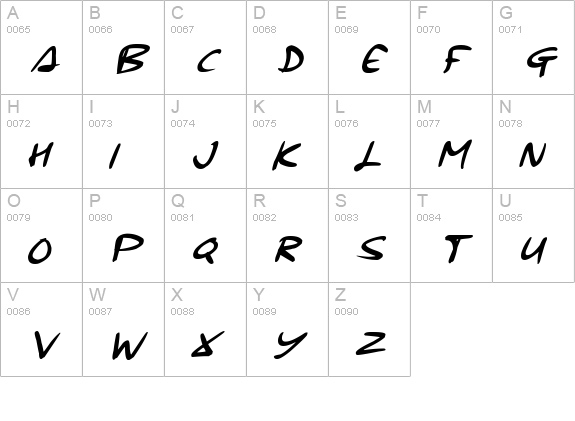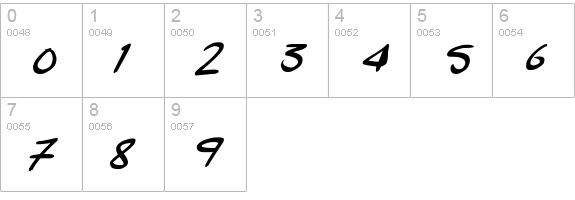
Singup Font Details
Singup is a free for personal use font in the Script > Handwritten category, designed by Darrell Flood. It has been downloaded 84 times and is available for Windows, Mac and Linux.
Singup font is a beautifully crafted typeface that exudes elegance and sophistication. Its sleek, modern design makes it perfect for a wide range of projects, from branding to editorial design. With its clean lines and graceful curves, Singup font adds a touch of class to any text it graces.